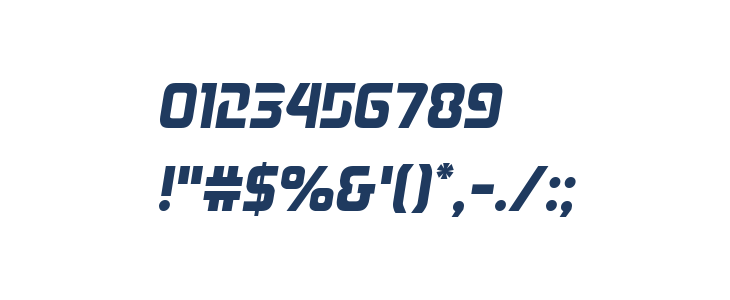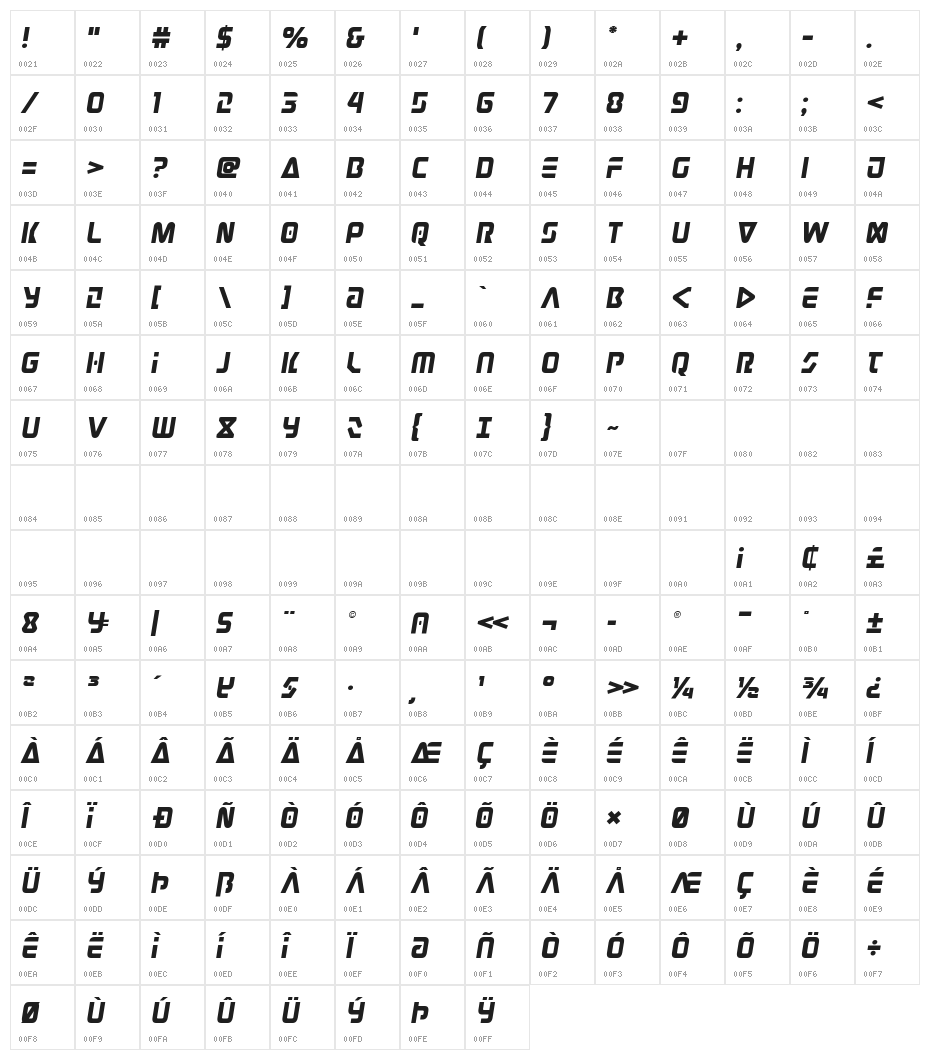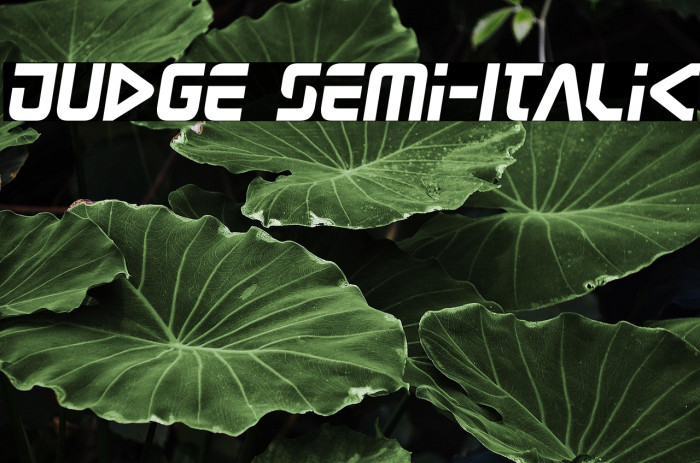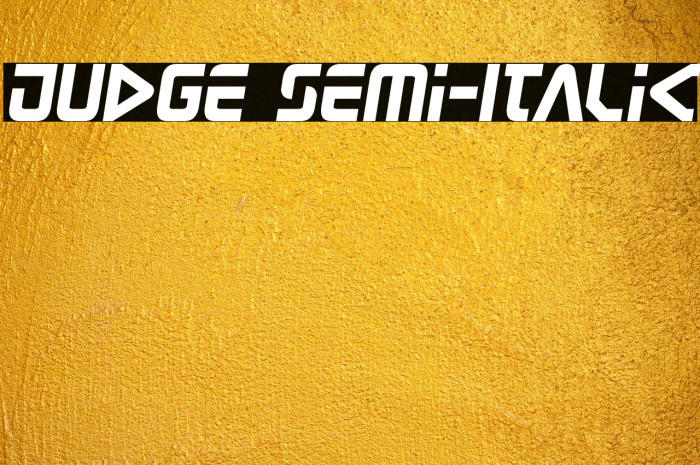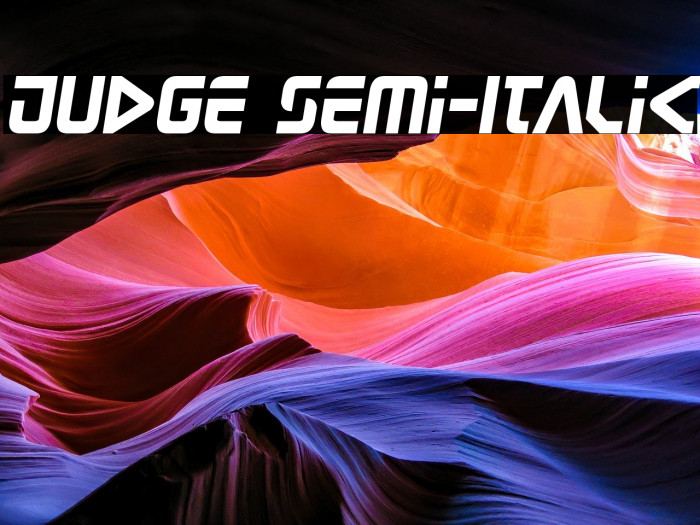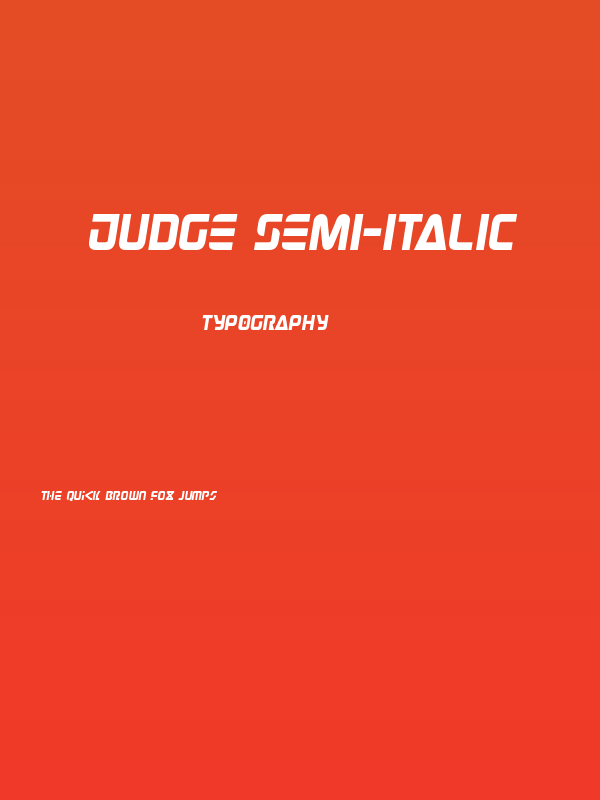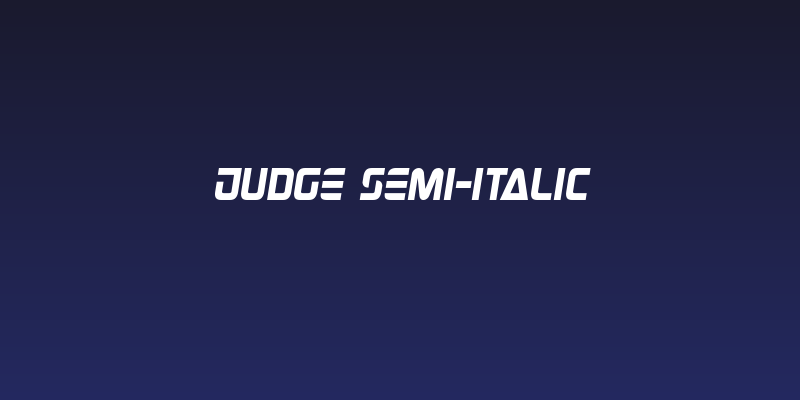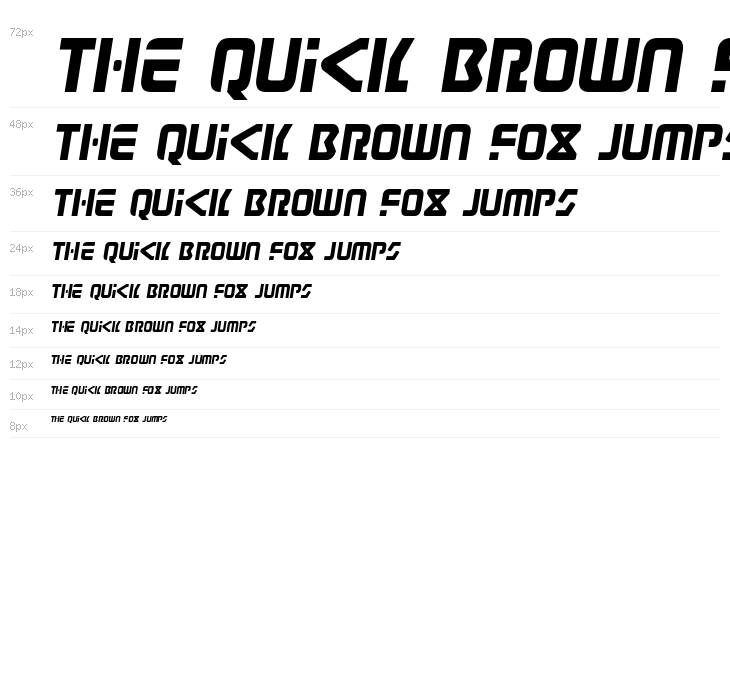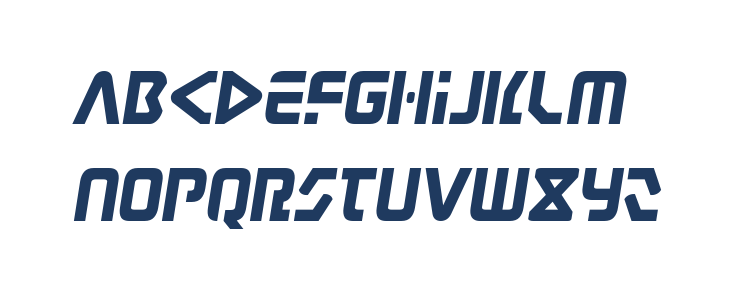
Judge Semi-Italic Font
Judge Semi-Italic Description
This font features a bold, futuristic design with a semi-italic slant, giving it a dynamic and forward-moving appearance. The characters are constructed with geometric precision, incorporating sharp angles and clean lines that convey a sense of modernity and innovation. The uppercase and lowercase letters maintain a consistent style, with unique cutouts and shapes that add visual interest. The numerals and special characters are designed to match the overall aesthetic, ensuring a cohesive look across all text elements. This font's distinct style makes it ideal for projects that require a strong, contemporary presence.
| Proposed Projects | Ideal for technology branding, sci-fi movie posters, video game titles, and modern advertising campaigns. |